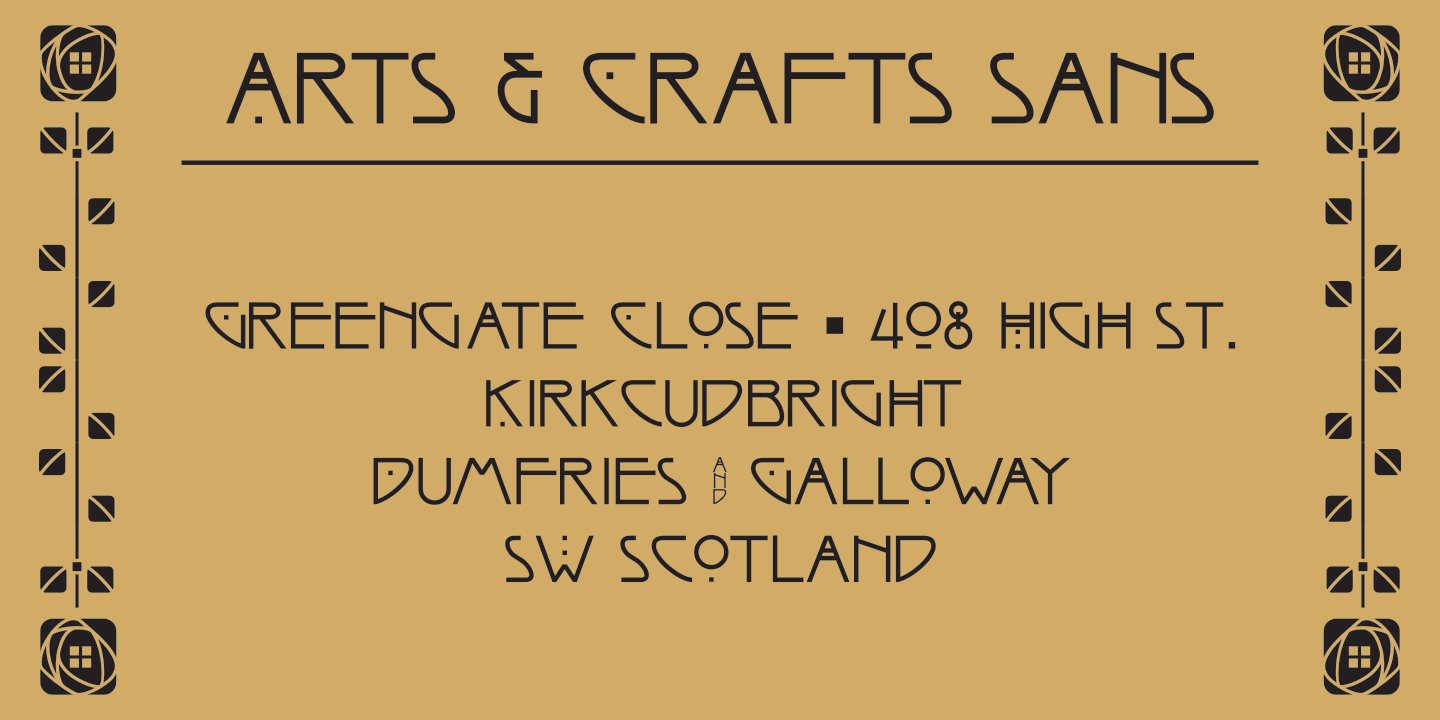
Arts And Crafts Sans BA Font Free Download delivers artisanal typography that combines handcrafted aesthetics with contemporary functionality for creative design applications. This commercial font requires purchase for business use, but you can download it for free for testing purposes to evaluate its distinctive craft-inspired characteristics in your creative projects.
Arts And Crafts Sans BA Font excels across diverse design applications including handmade product branding, artisan marketplace marketing, craft workshop communications, creative studio identity, handmade jewelry packaging, pottery business materials, textile craft promotions, and artistic educational publications. Its artisanal character makes it particularly effective for projects requiring authentic craftsmanship while maintaining contemporary appeal, ensuring your designs convey creative authenticity and handmade quality across both digital platforms and craft-quality print materials.
What makes Arts And Crafts Sans BA Font truly exciting is its masterful interpretation of Arts and Crafts movement principles enhanced with modern design sensibilities that creates compelling handmade communications. The font features carefully crafted letterforms that incorporate subtle elements reminiscent of hand lettering and traditional craftsmanship while maintaining excellent readability and professional application. Its distinctive character construction draws inspiration from the historic Arts and Crafts movement and contemporary maker culture, creating text that feels both artistically grounded and relevant to modern creative needs. The font's optimized spacing and harmonious proportions ensure superior performance across various craft applications while preserving the characteristic authenticity that defines its artisanal personality.
Arts And Crafts Sans BA Font presents a comprehensive type family designed to support diverse creative and handcraft design requirements. The family typically includes light, regular, medium, bold, and heavy weights, along with corresponding italic variations that provide complete flexibility for artisanal typography compositions. Many versions feature extended character sets with craft symbols, artistic ornaments, and specialized glyphs that enhance authentic handmade aesthetic applications.
The Arts And Crafts Sans BA Font Free Download represents exceptional value for designers working on craft-focused and creative projects across multiple sectors. Whether developing handmade business branding, creating artisan marketplace materials, designing craft workshop communications, or producing creative education content, this font delivers consistent authenticity and memorable artisanal appeal. Its craft characteristics make it particularly effective for industries including handmade goods, artistic education, creative workshops, and artisan marketplaces sectors seeking to communicate genuine craftsmanship and creative integrity.
For optimal results, Arts And Crafts Sans BA Font combines beautifully with warm, earthy color palettes and handcrafted design elements that reinforce its artisanal message. Its authentic presence excels in headline applications while maintaining excellent performance in creative communication contexts. The font's craft sophistication and artisanal appeal make it an invaluable tool for creating trustworthy communications that resonate with audiences appreciating handmade quality and creative craftsmanship.